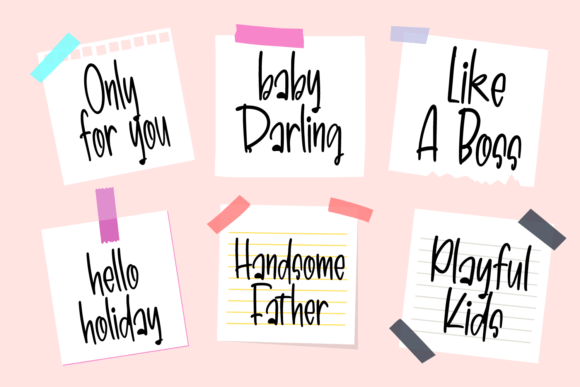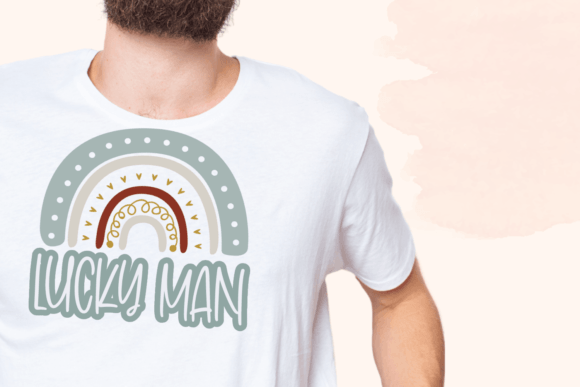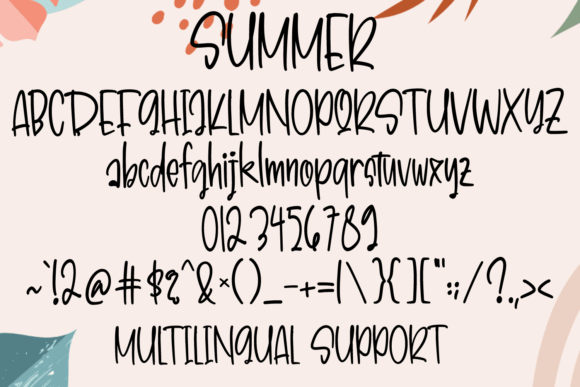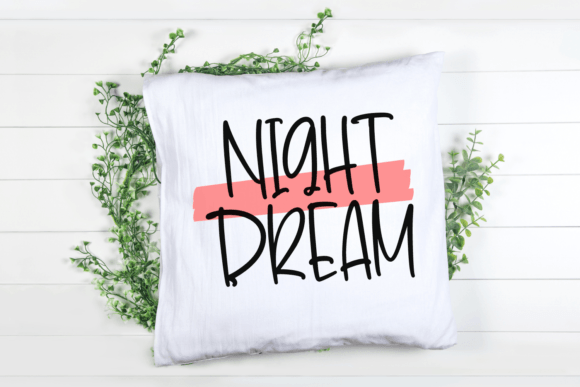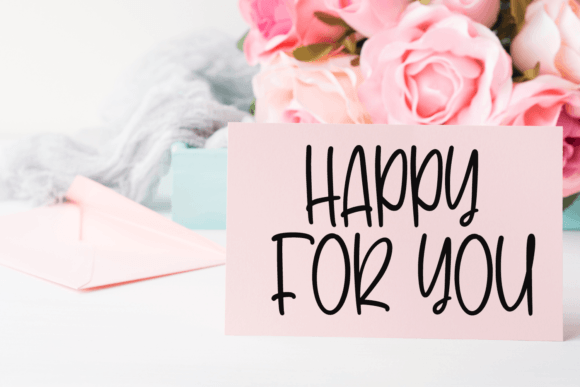
**Summer Font: Where Loveliness Meets Handwritten Elegance**
Introducing “Summer,” a lovely handwritten font that becomes the perfect companion for crafters and graphic artists alike. This font, with its graceful strokes and charming aesthetic, breathes life into your most creative ideas. From wedding invitations to business cards, “Summer” looks stunning on a variety of designs, infusing them with a handwritten touch that exudes elegance.
At the heart of “Summer” is a loveliness that transcends the ordinary. The font’s handwritten style is crafted with precision, resulting in an aesthetic that is both timeless and contemporary. This font is not just a typeface; it’s a design asset that brings an air of elegance to your projects.
The versatility of “Summer” shines through in its adaptability to various design contexts. Picture it gracing wedding invitations, adding a touch of romance to thank you cards, or becoming the signature font for quotes that demand a personalized touch. This font becomes a versatile companion that aligns seamlessly with the essence of your creative vision.
“Summer” is not just limited to traditional mediums; its elegance extends effortlessly to the digital landscape. Whether you’re creating content for websites, social media, or digital invitations, this font becomes the secret ingredient that adds a unique and charming flair to your online presence.
In conclusion, “Summer” is not just a font; it’s a journey into loveliness, a handwritten elegance that adds a layer of sophistication to your creative projects. Embrace it, and watch as your designs unfold with grace and timeless charm. With “Summer,” every letter becomes a brushstroke in the canvas of elegance, leaving an indelible mark of handwritten loveliness on your design journey.